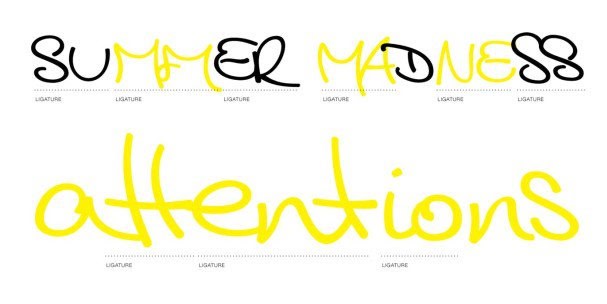
cedi
Cedi Font, a modern and versatile typeface, available in OTF, TTF, WOFF formats. Ideal for web design, logos, and creative projects.
Explore the Modern Charm of Cedi Font
Cedi Font, created by graphic designer Alex Taylor in 2022, captivates with its modern and versatile style. This typeface is perfect for a variety of applications, including web design, logos, and promotional materials, offering a contemporary flair that enhances any project.
The Inspiration Behind Cedi Font
Inspired by minimalistic design principles and contemporary trends, Cedi Font represents a fusion of classic typography with a modern twist. Alex Taylor aimed to develop a typeface that stands out while remaining highly readable and adaptable to diverse design needs.
Versatile Applications for Cedi Font
Cedi Font is ideal for projects such as branding, social media graphics, and website designs. Its versatility allows it to meet both formal and casual design requirements, making it the go-to choice for designers looking to create visually striking content.